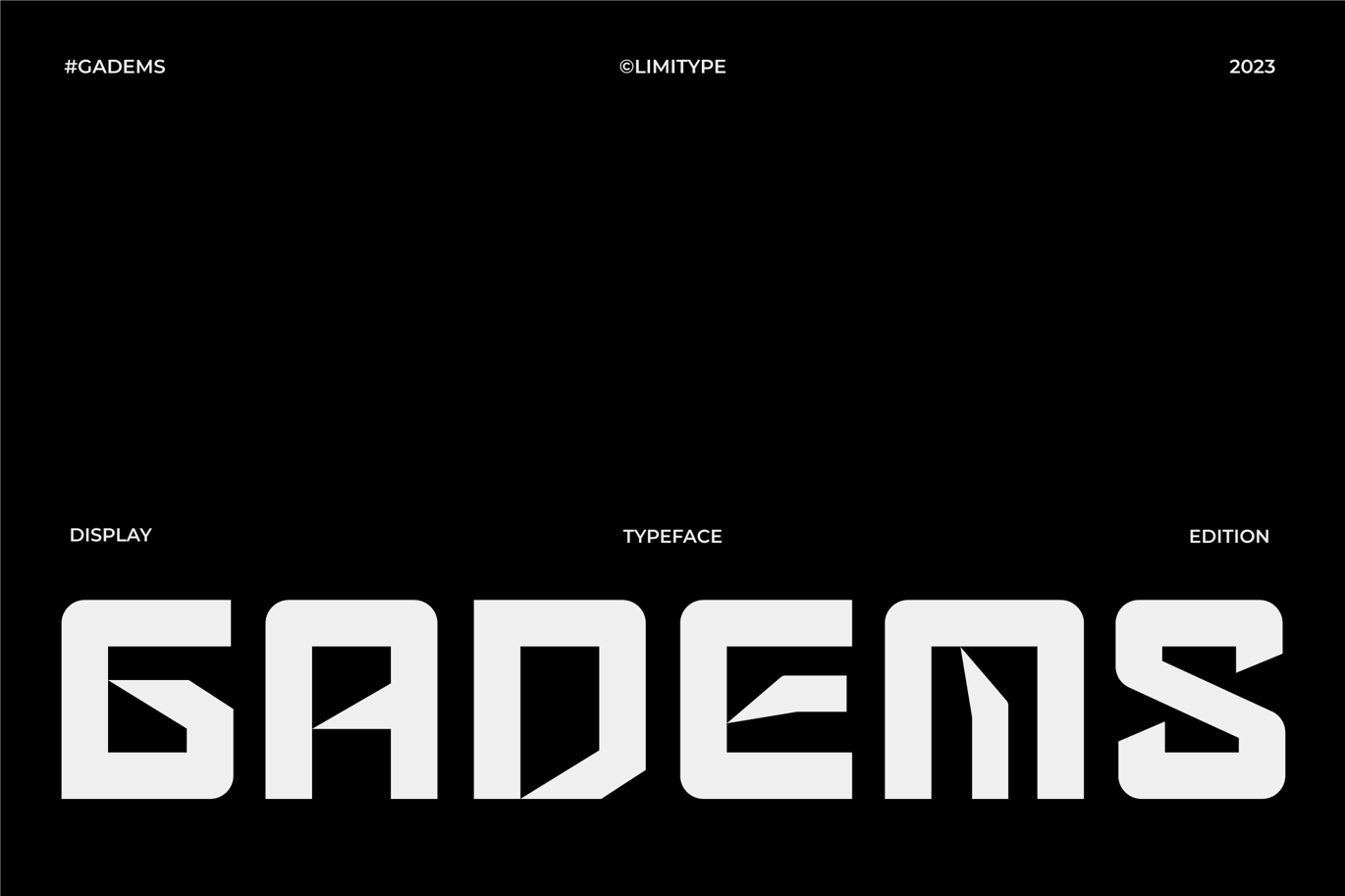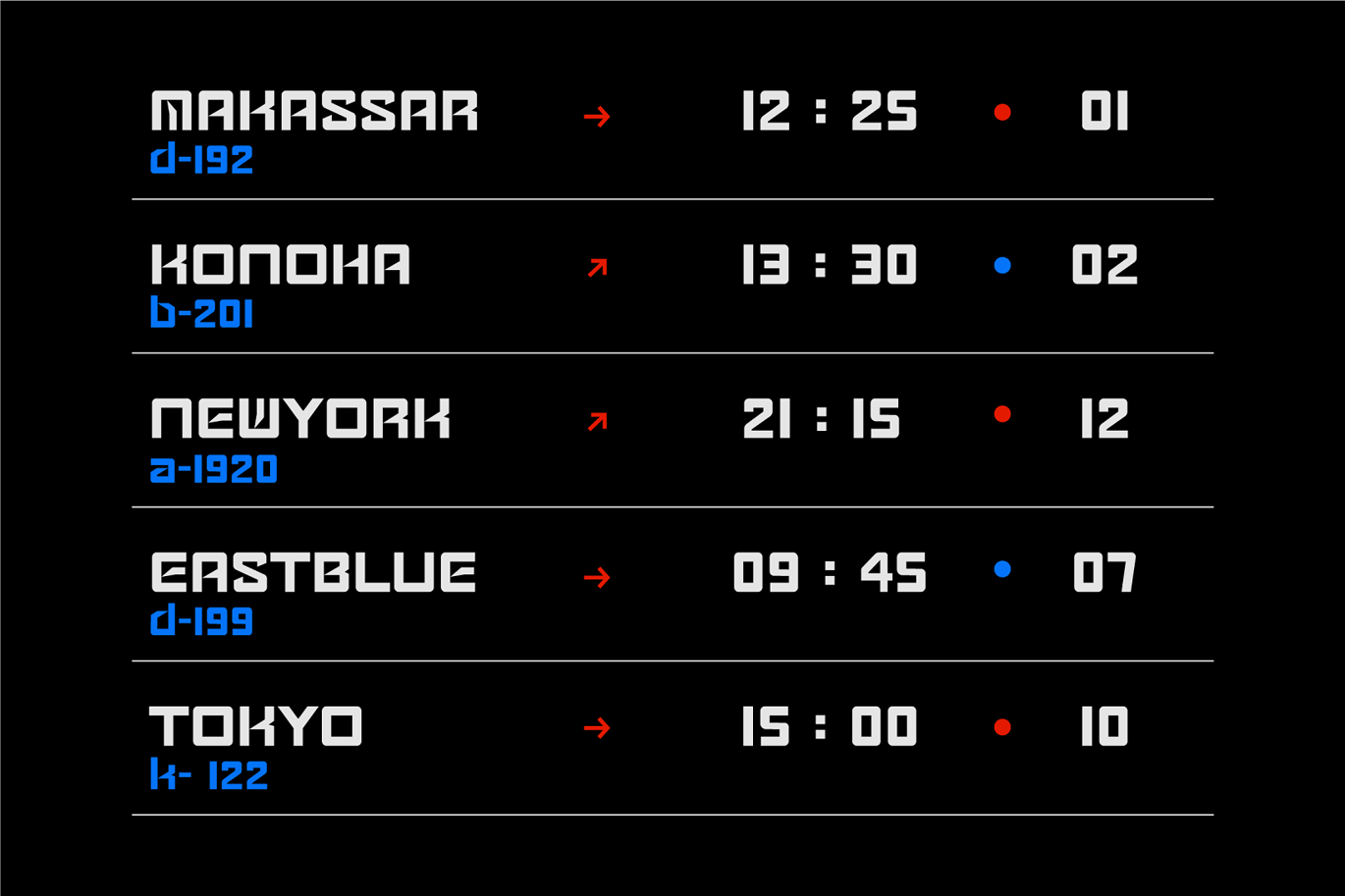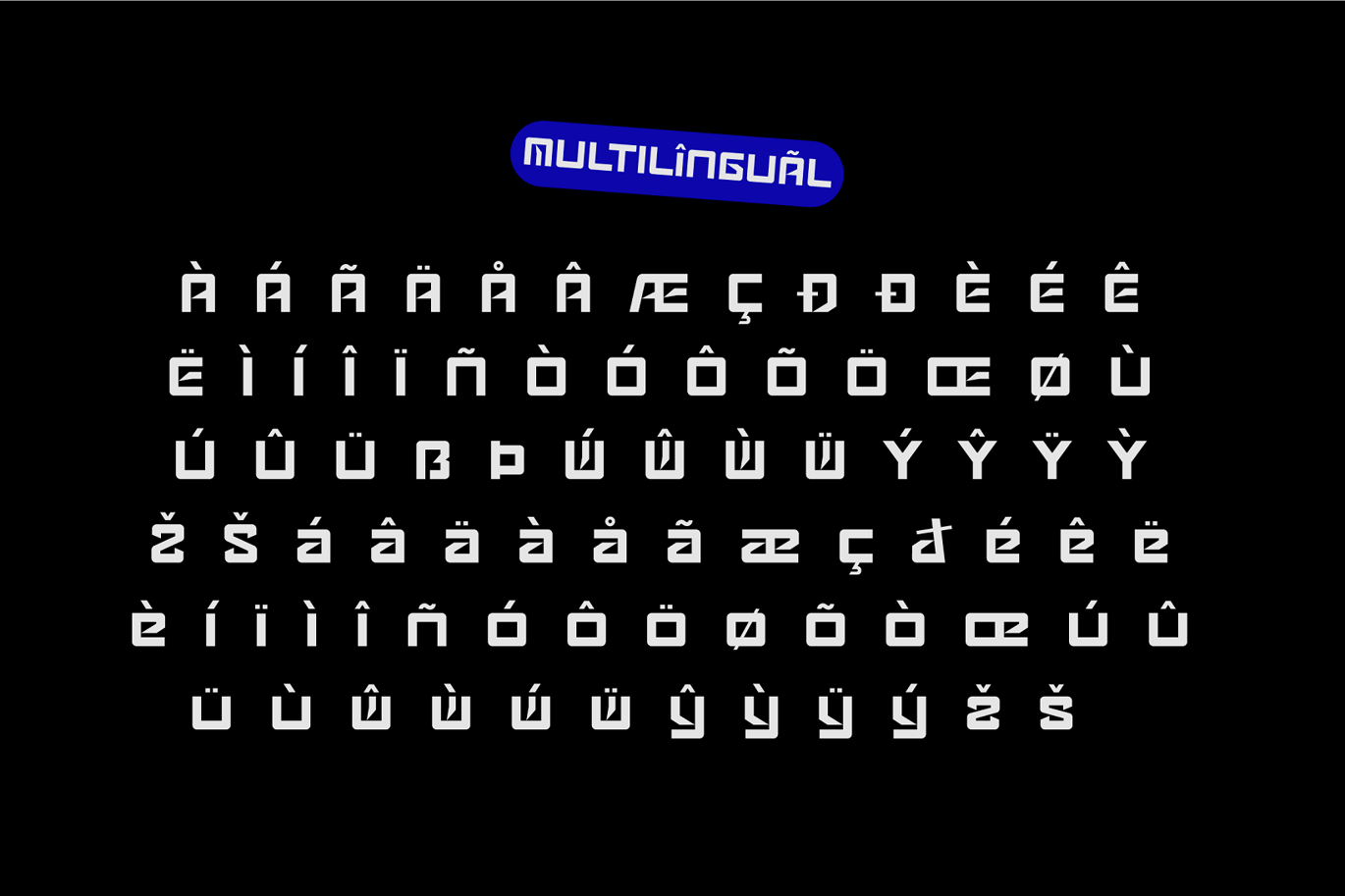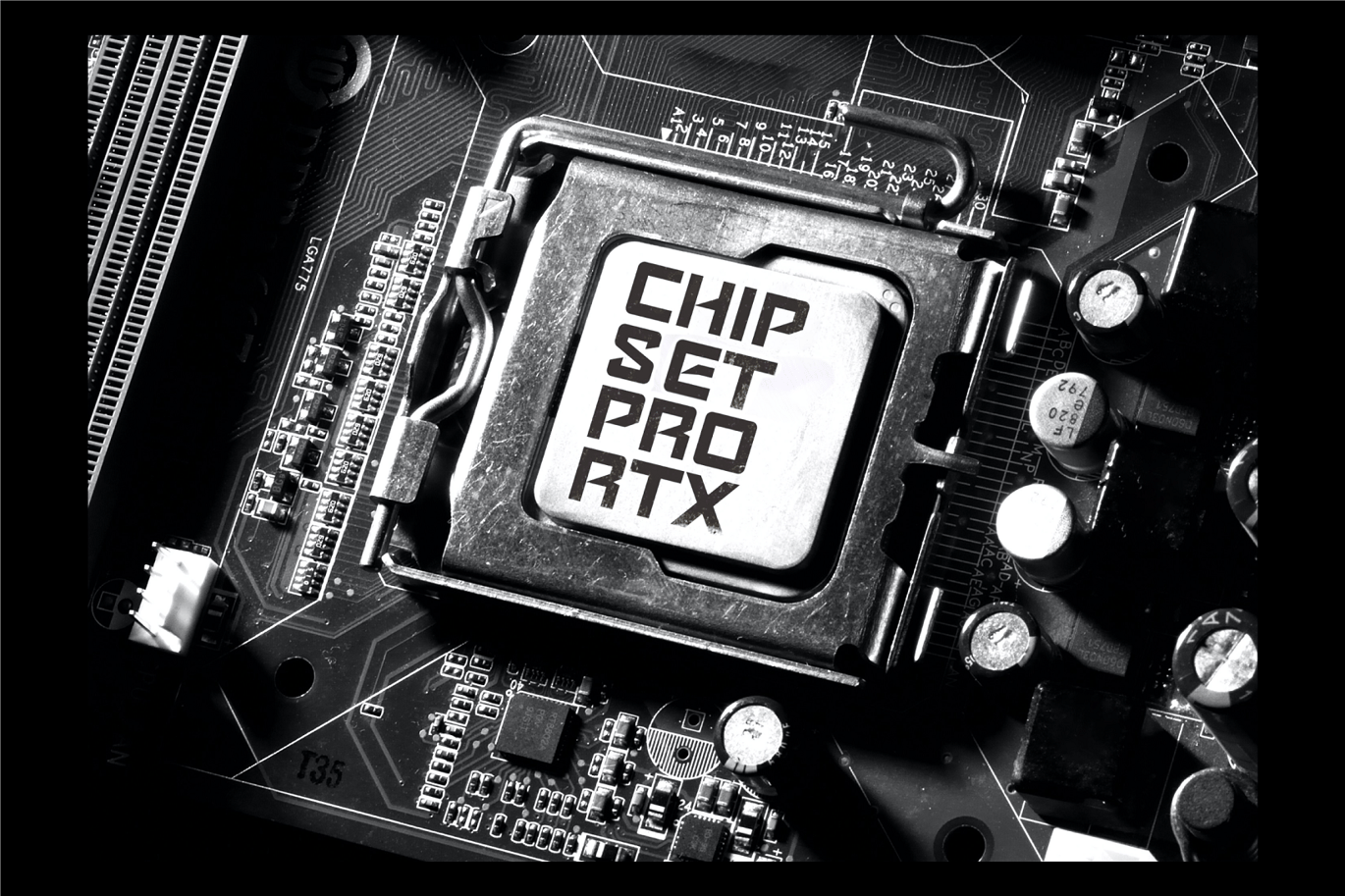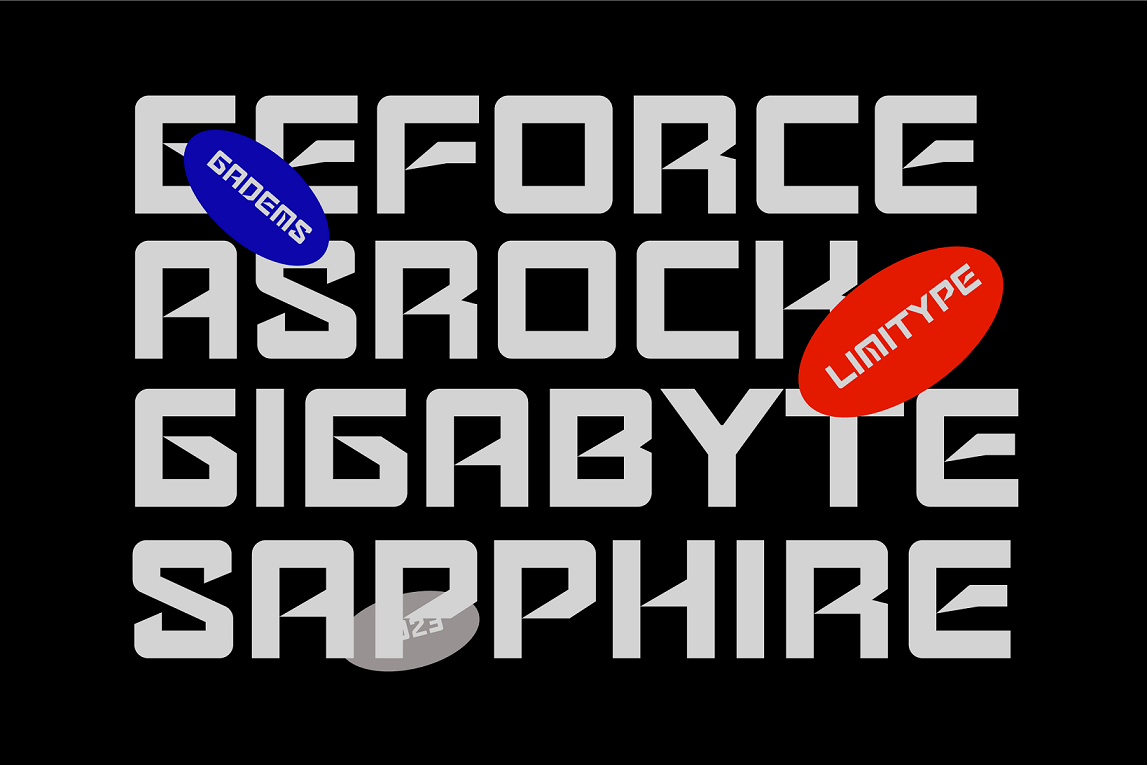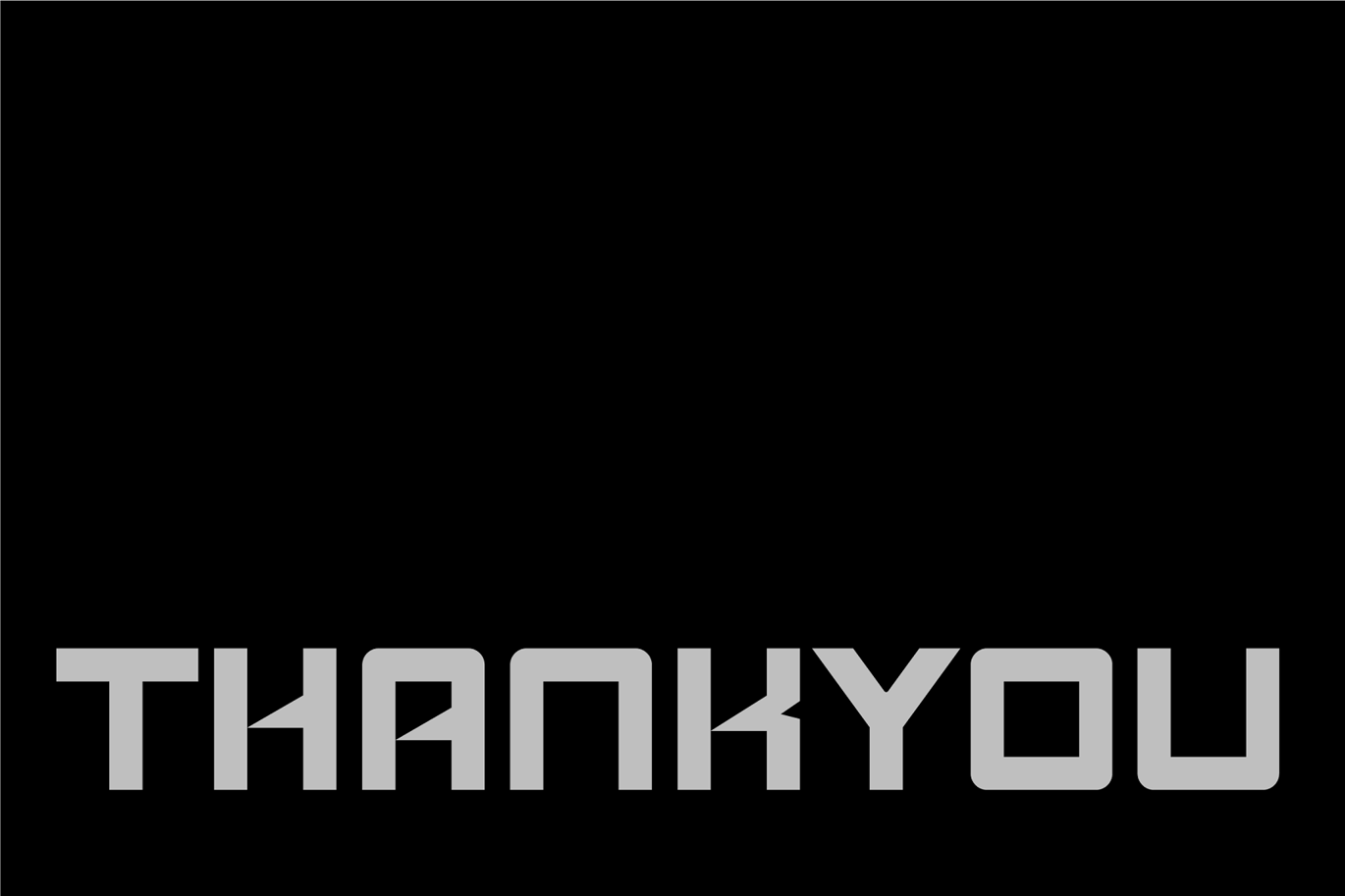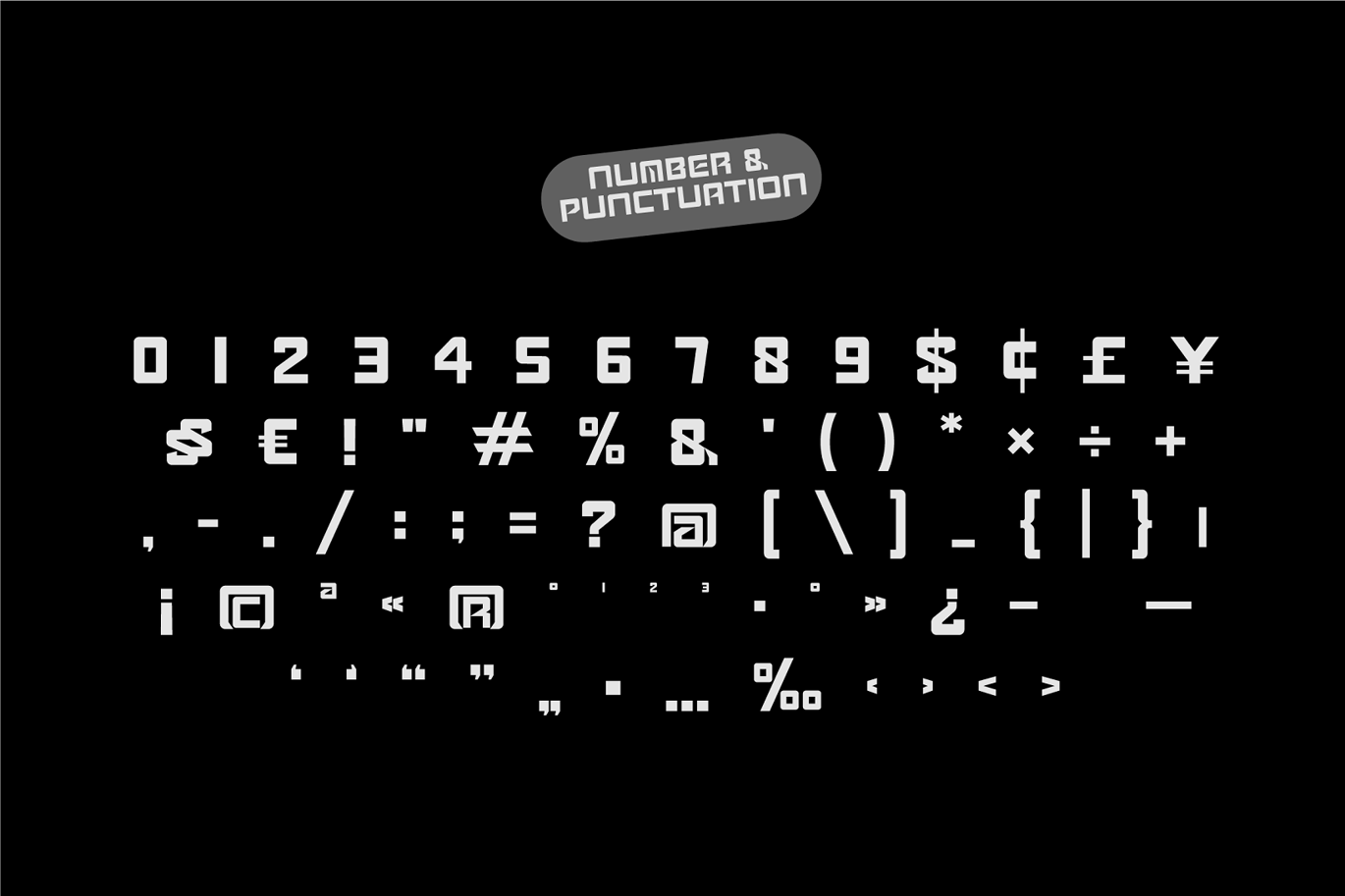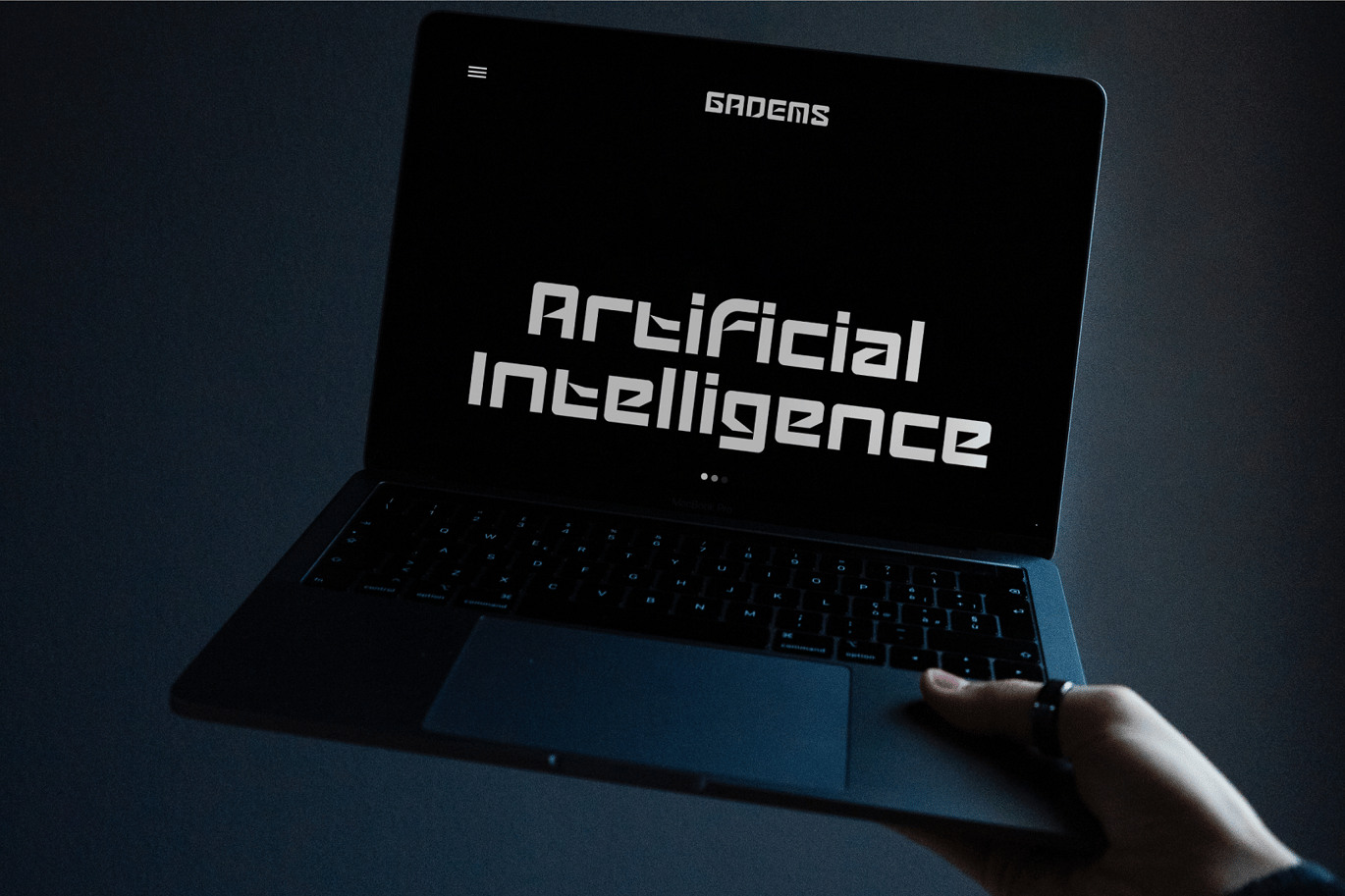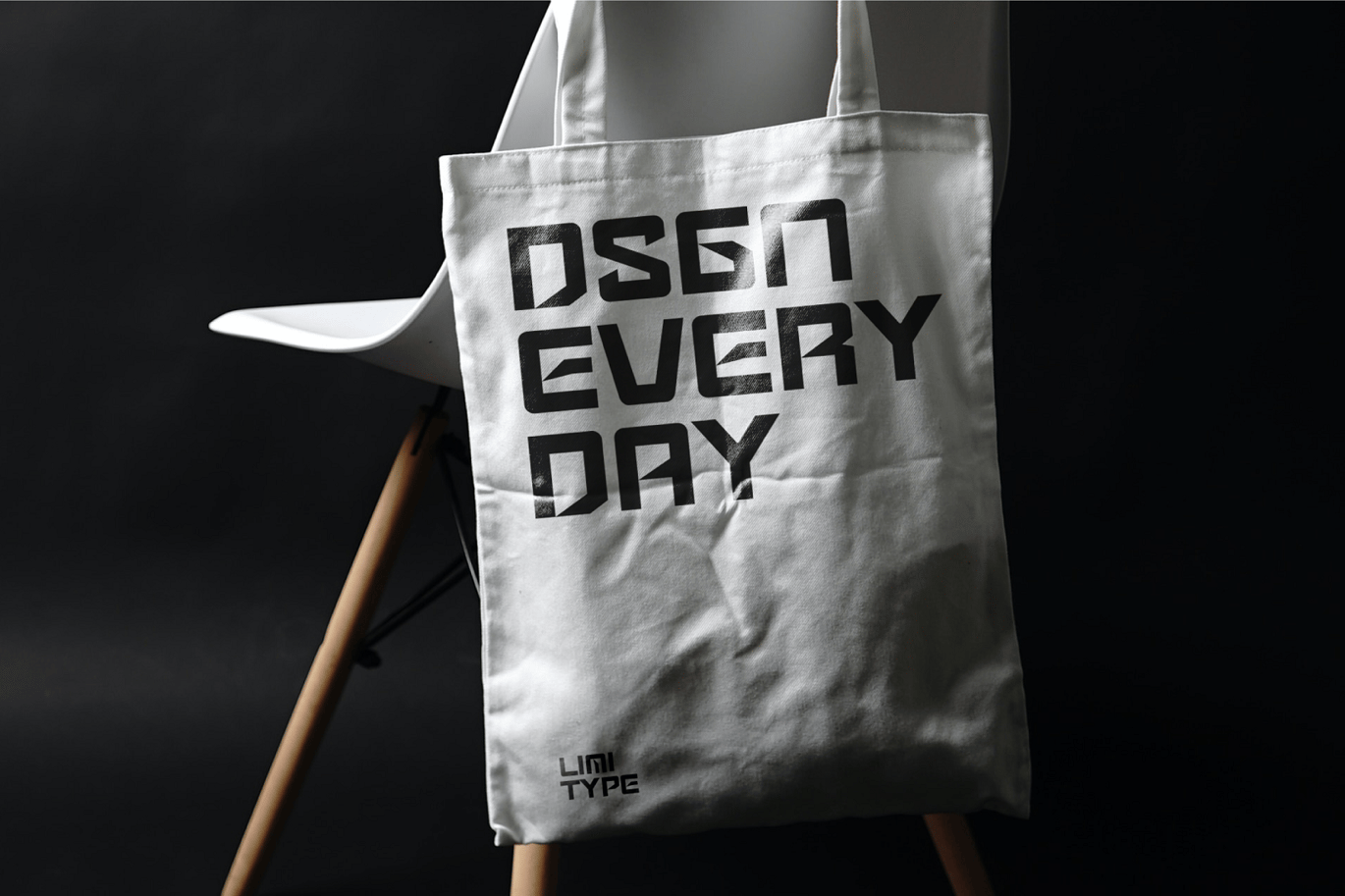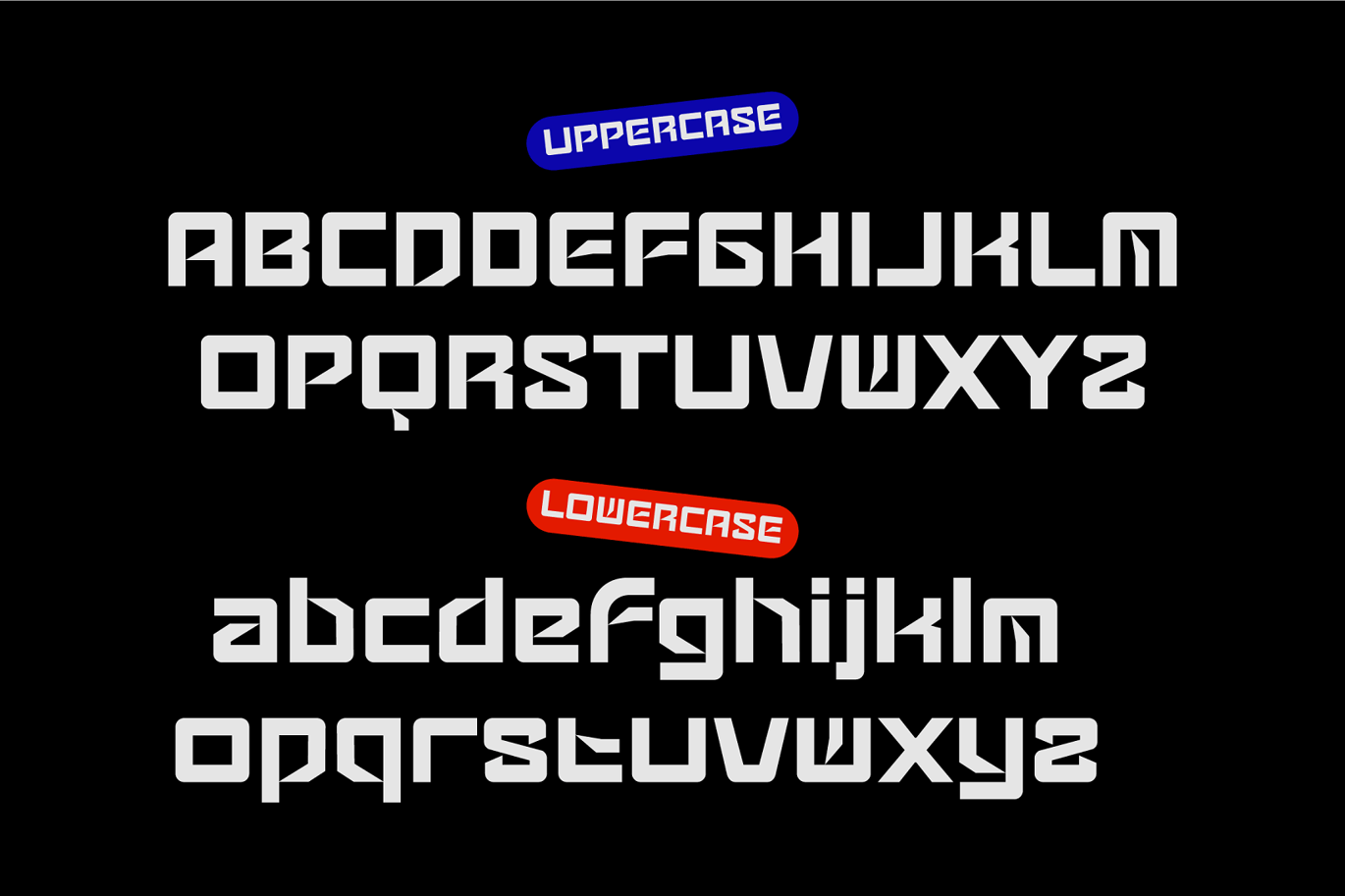
Gadems – Futuristic Font
Gadems is a display typeface with futuristic characteristics with a modern and cool appearance with a unique shape. Gadems are inspired by modern digital typography which is getting more varied and experimental every day which of course influences the design style itself.
Gadems are equipped with :
- Symbols
- And several Multilingual